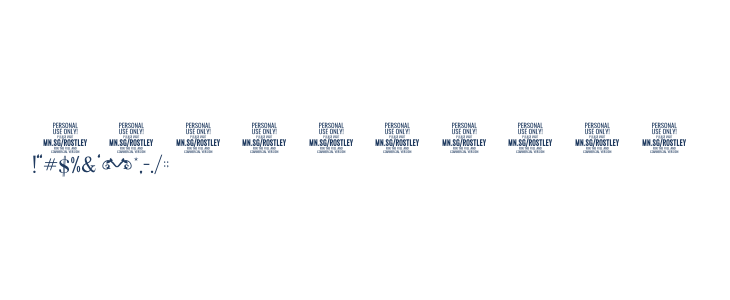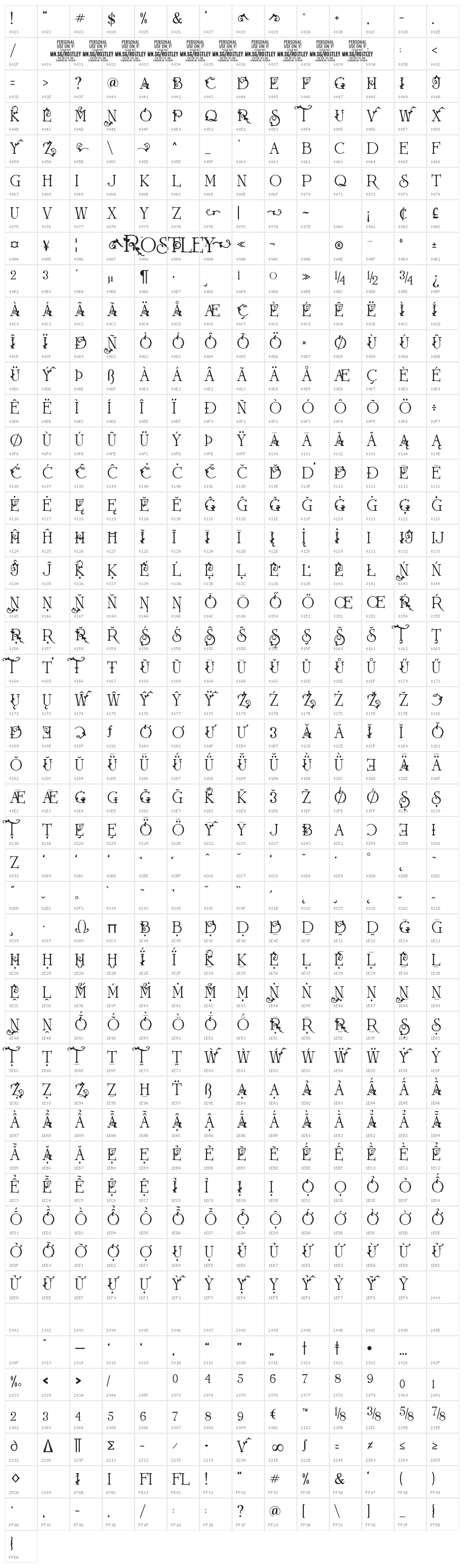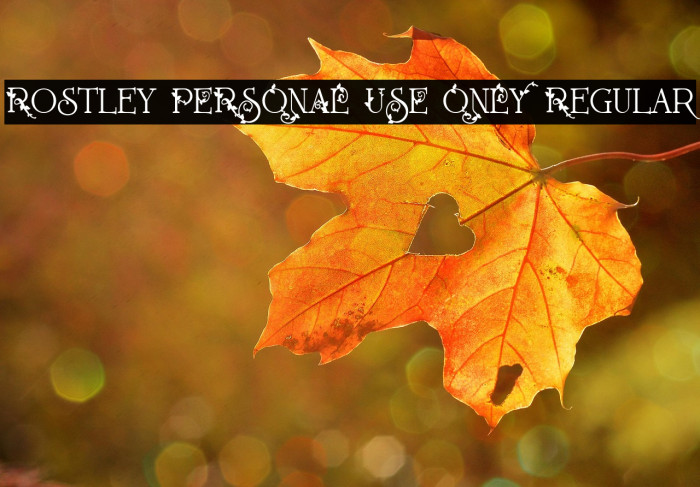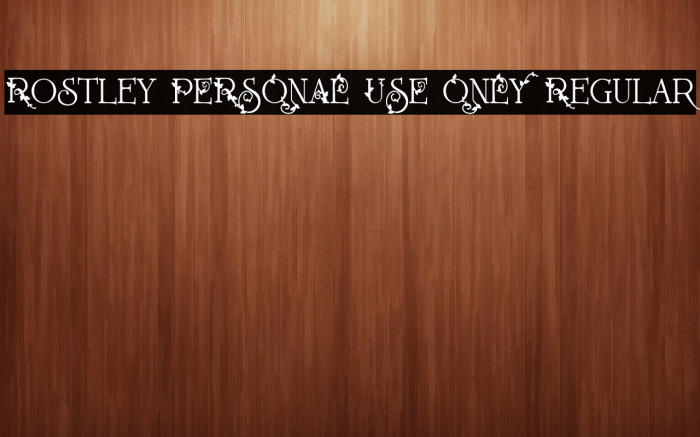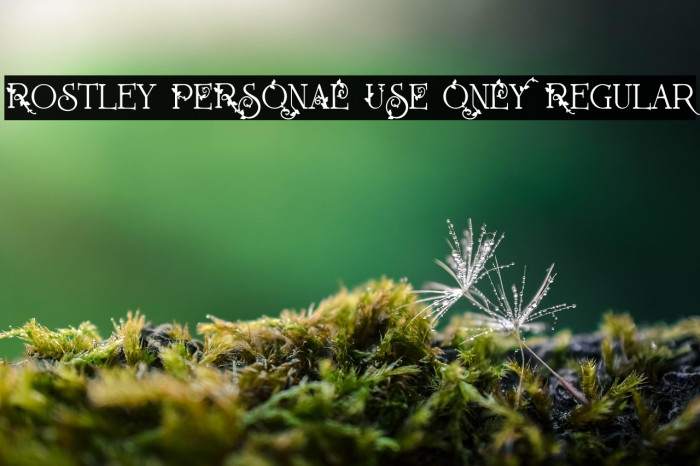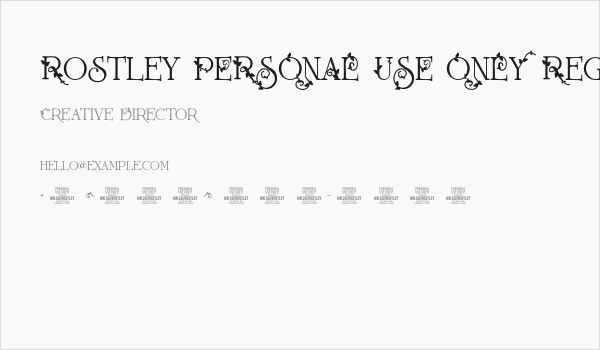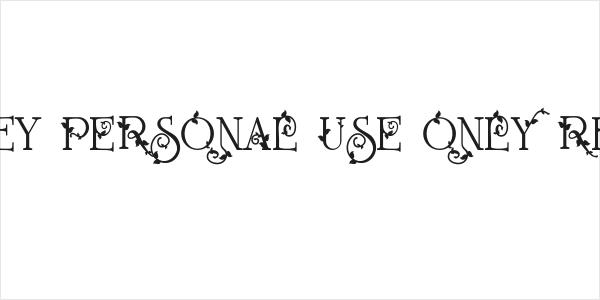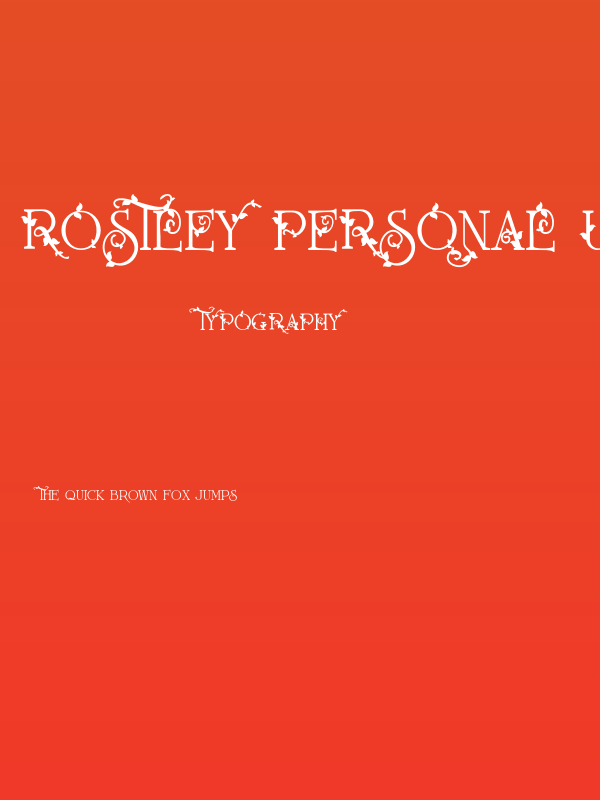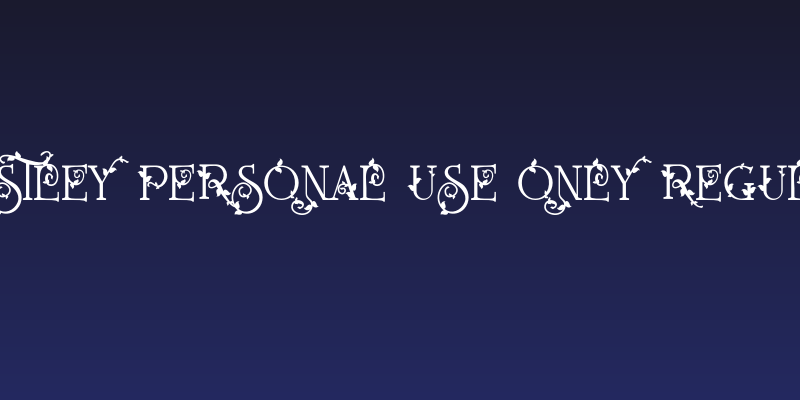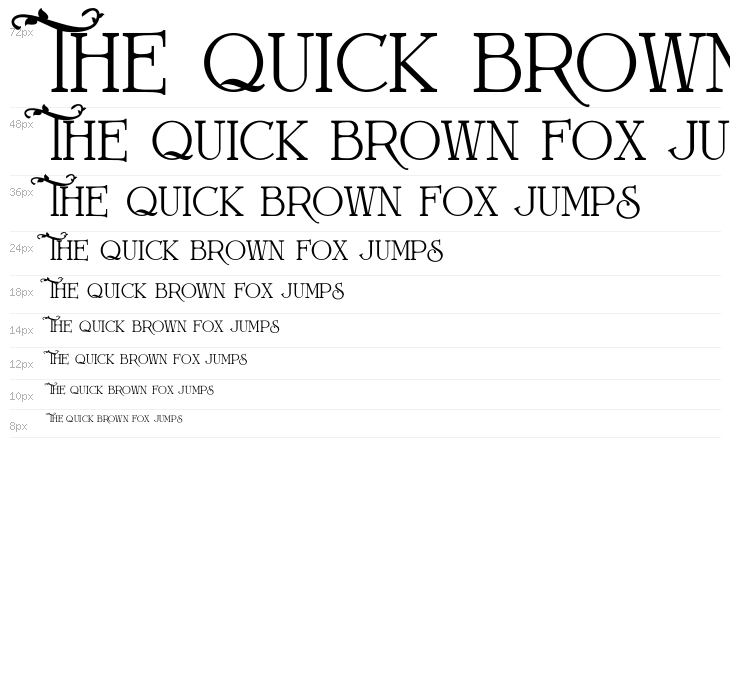
Rostley PERSONAL USE ONLY Regular Font
Rostley PERSONAL USE ONLY Regular Description
This font features a decorative and ornate style, characterized by intricate flourishes and embellishments that extend from the main strokes of each letter. The uppercase letters are particularly elaborate, with swirling vines and leaf-like details that give the font a whimsical and artistic flair. The lowercase letters are more restrained but still maintain a sense of elegance and sophistication. The numerals and special characters are consistent with the overall decorative theme, making this font ideal for projects that require a touch of fantasy or elegance. The font's unique style makes it stand out, perfect for creative and artistic applications.
| Use Case | Headlines, Logos, Artistic projects |
| Proposed Projects | Ideal for wedding invitations, fantasy-themed designs, book covers, and artistic posters. |